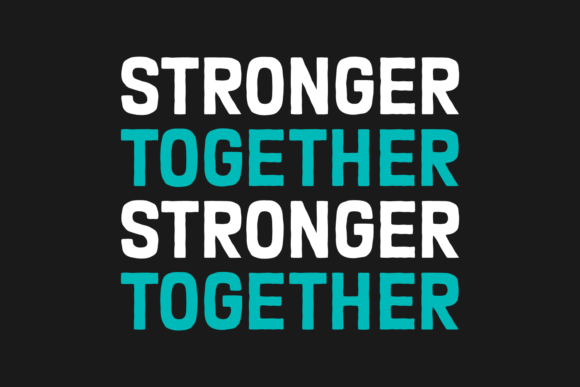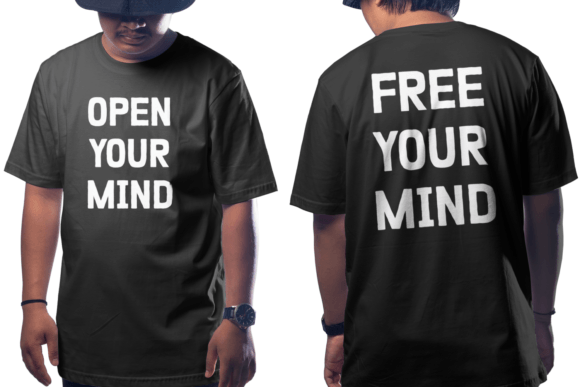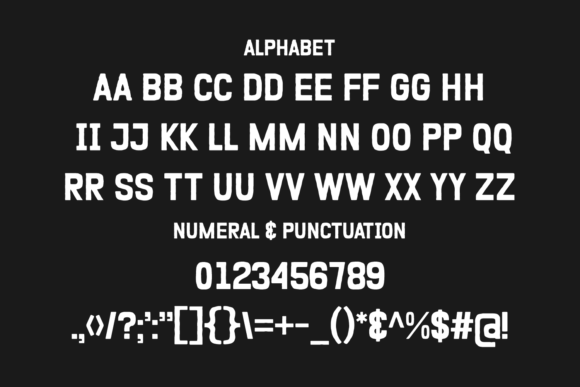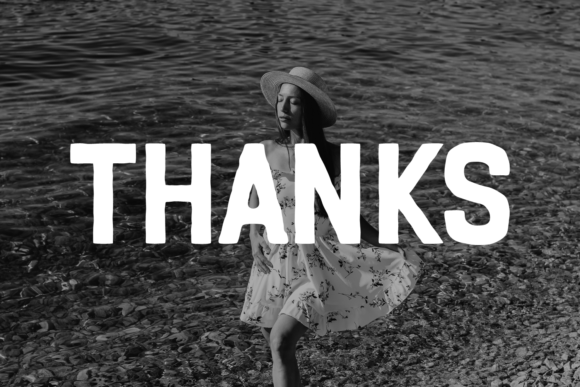
Introduction to Chill Oute Font
Chill Oute is a stylish sans-serif font that exudes a laid-back, relaxed vibe.
With clean lines and a touch of playfulness, itโs the ideal choice for projects seeking a cool and contemporary look Perfect for branding, social media graphics, and designs that radiate effortless charm.
Key Features of Chill Oute Font
Why Choose Chill Oute Font?
Chill Oute Font offers exceptional quality and versatility, making it a valuable addition to your design toolkit. Whether you’re creating for personal projects or commercial use, Chill Oute Font delivers professional results.